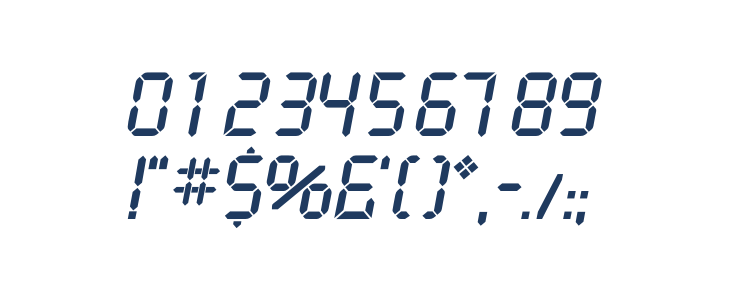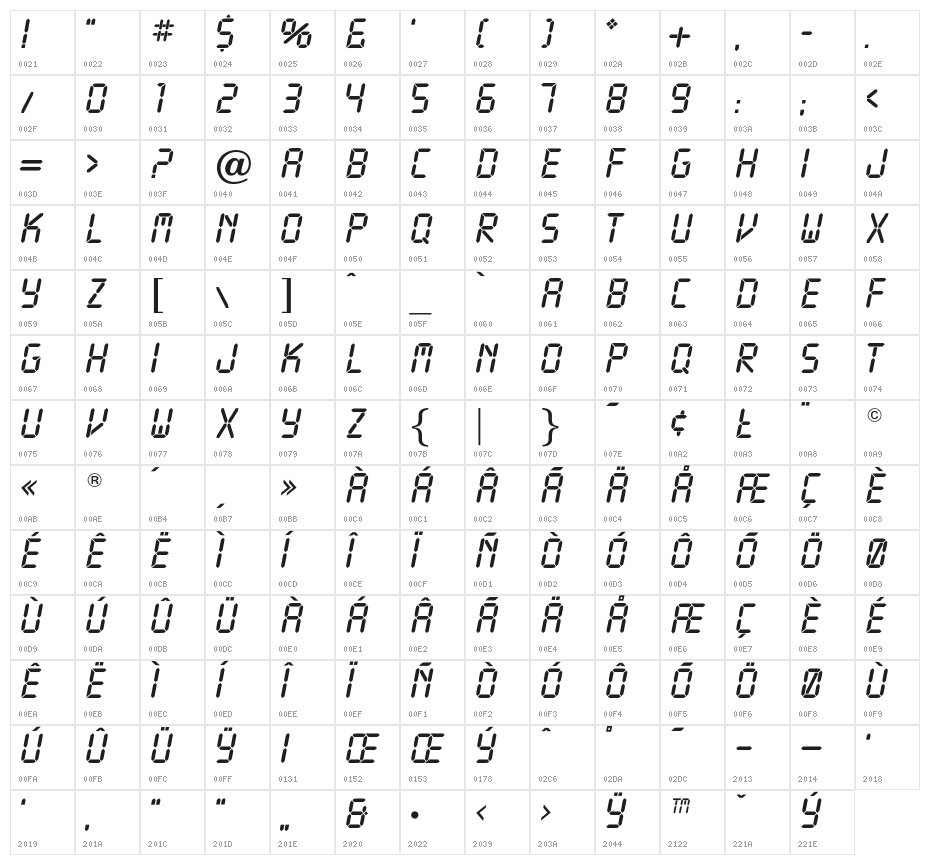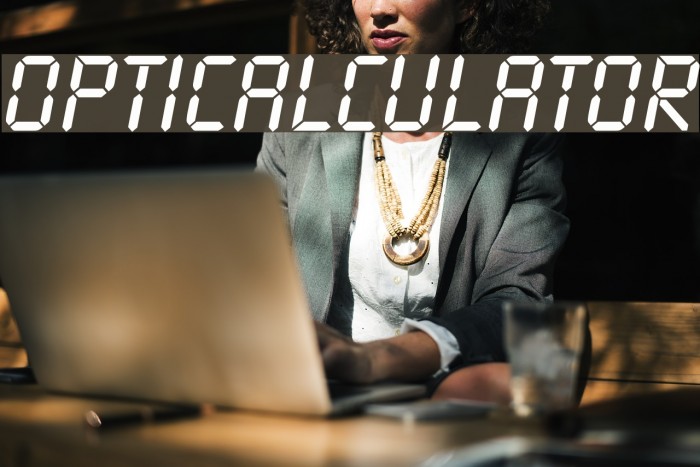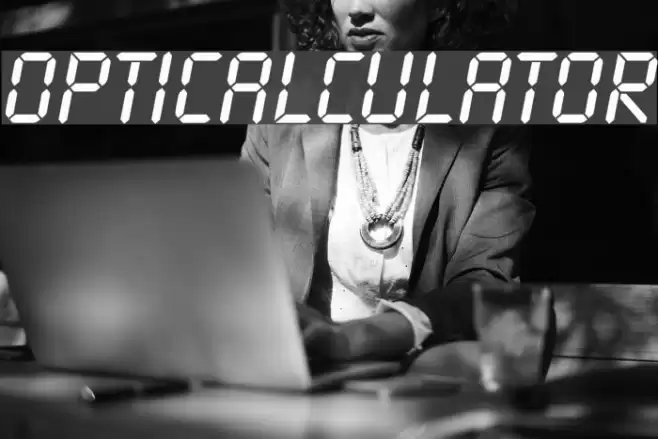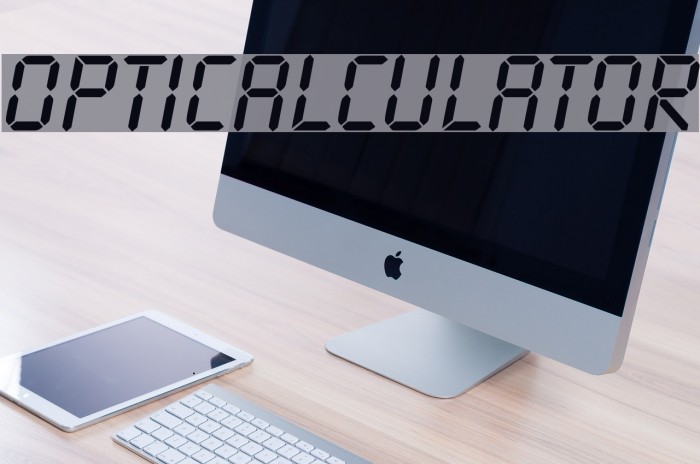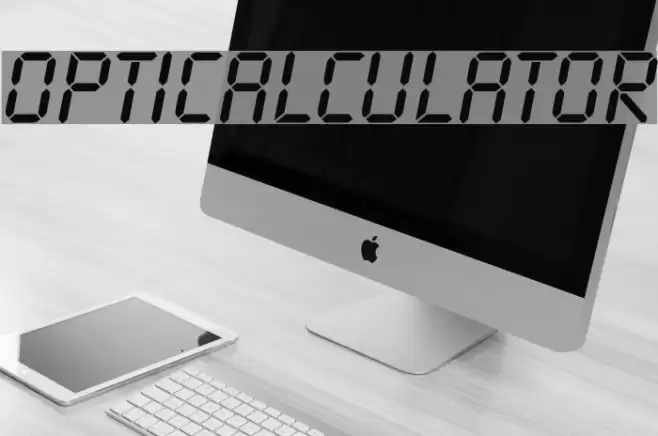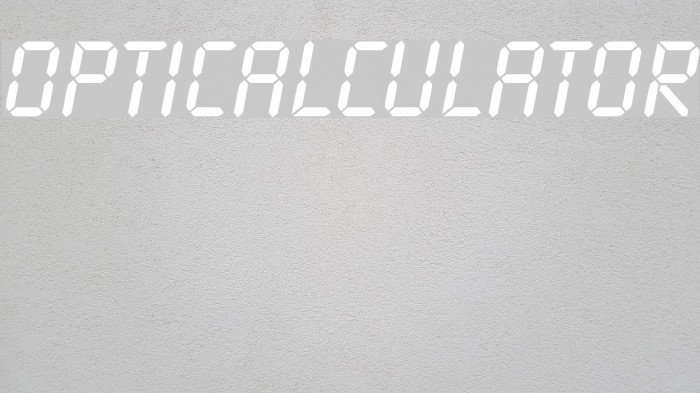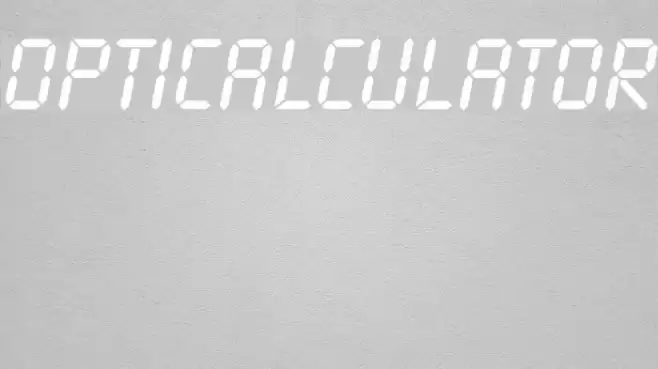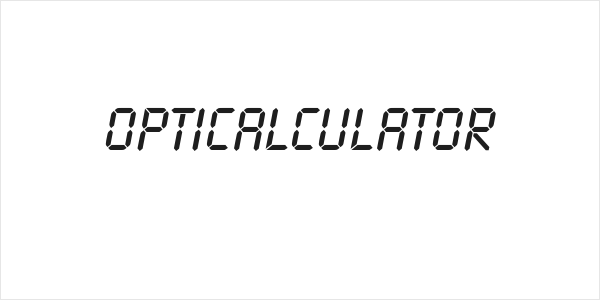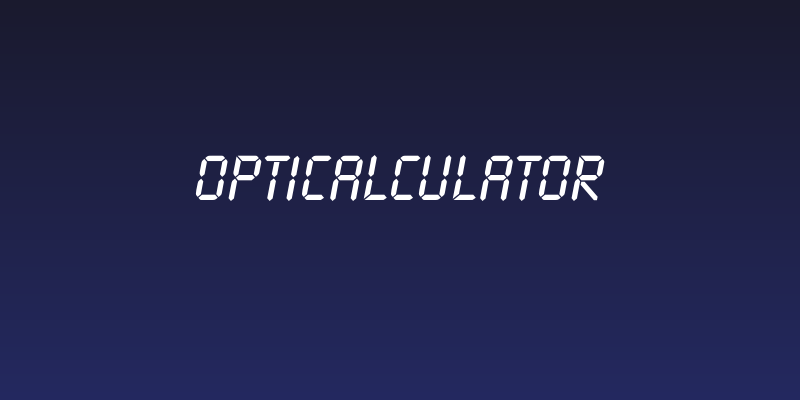
OPTICalculator Font
OPTICalculator Description
This font features a digital, segmented style reminiscent of classic LED displays found on calculators and digital clocks. Each character is composed of distinct segments, creating a geometric and technical appearance. The uppercase and lowercase letters, as well as numbers and special characters, maintain a consistent angular design, emphasizing clarity and precision. The font's structure is uniform, with each character appearing as if it is constructed from a series of straight lines and angles, giving it a futuristic and mechanical feel. This design is ideal for conveying a sense of technology and modernity.
| Use Case | Headlines, Logos, Digital displays |
| Proposed Projects | Ideal for digital interfaces, tech-themed posters, retro-futuristic designs, and any project requiring a digital or technical aesthetic. |